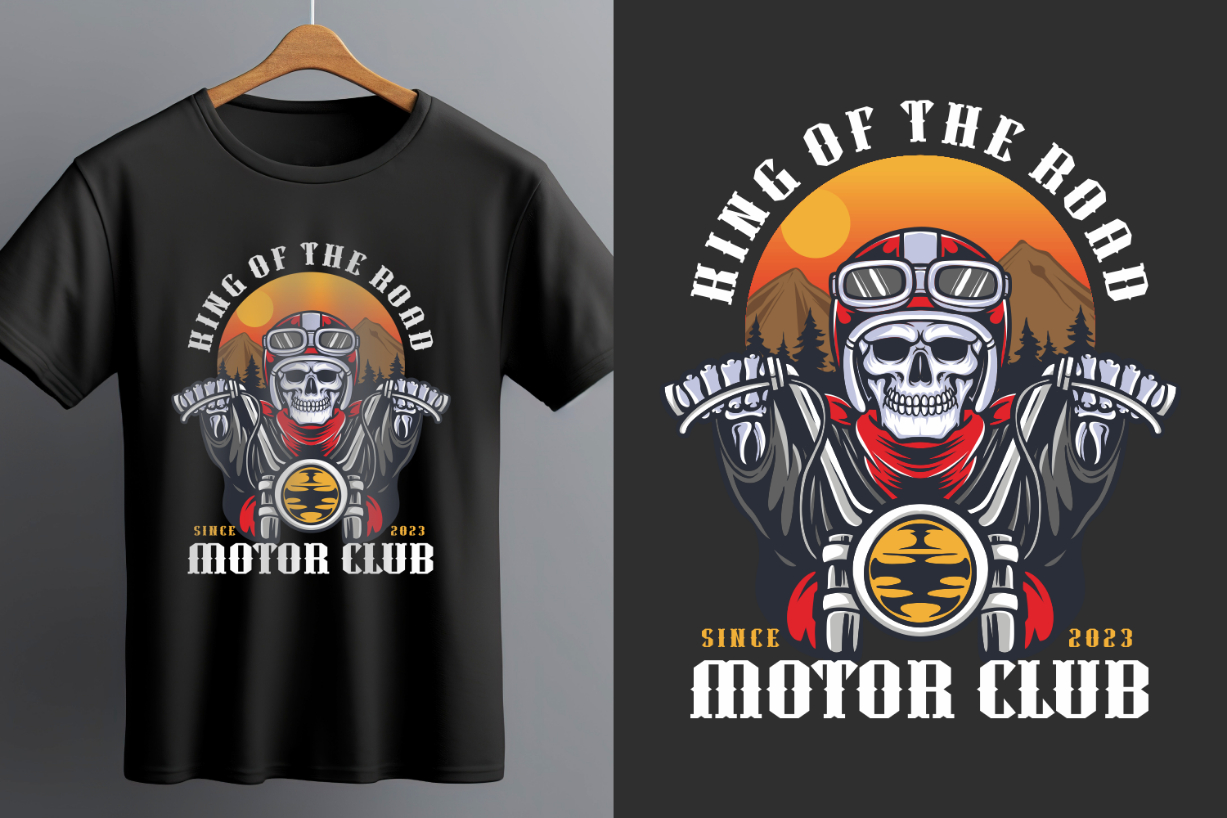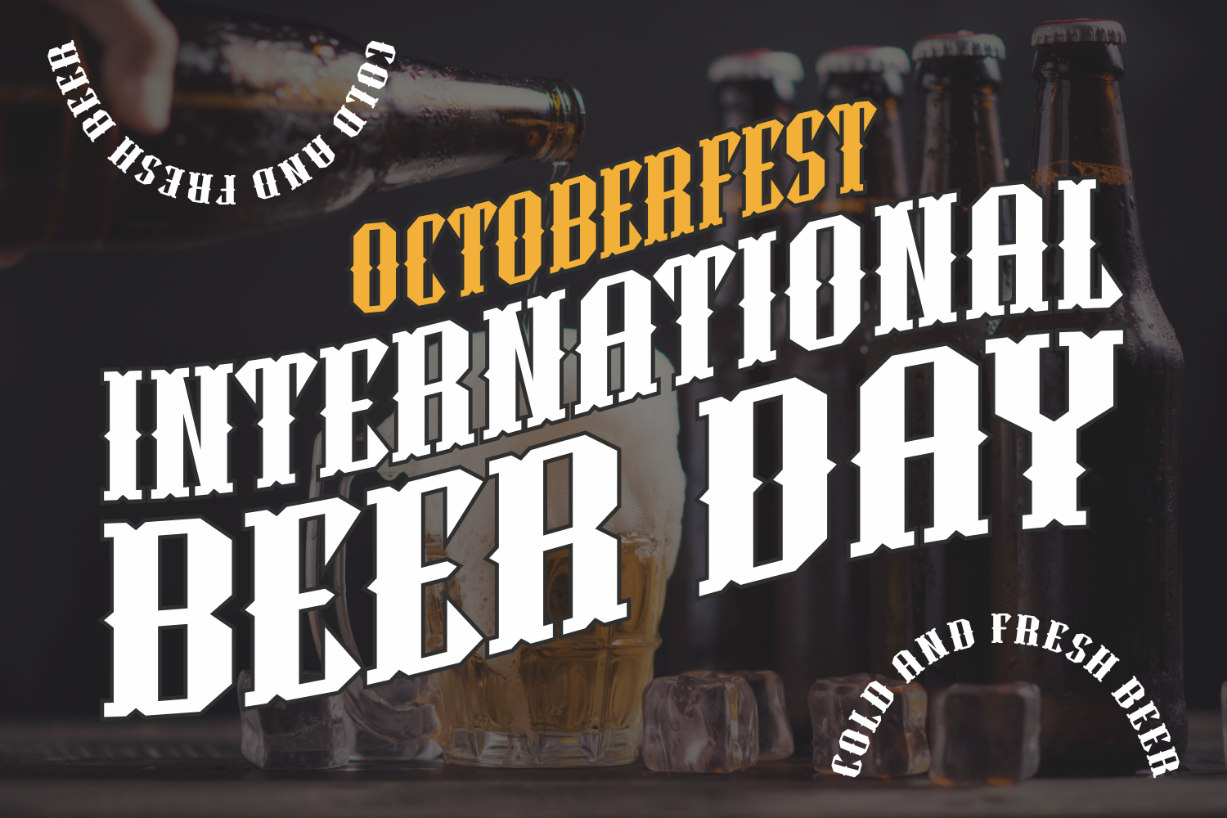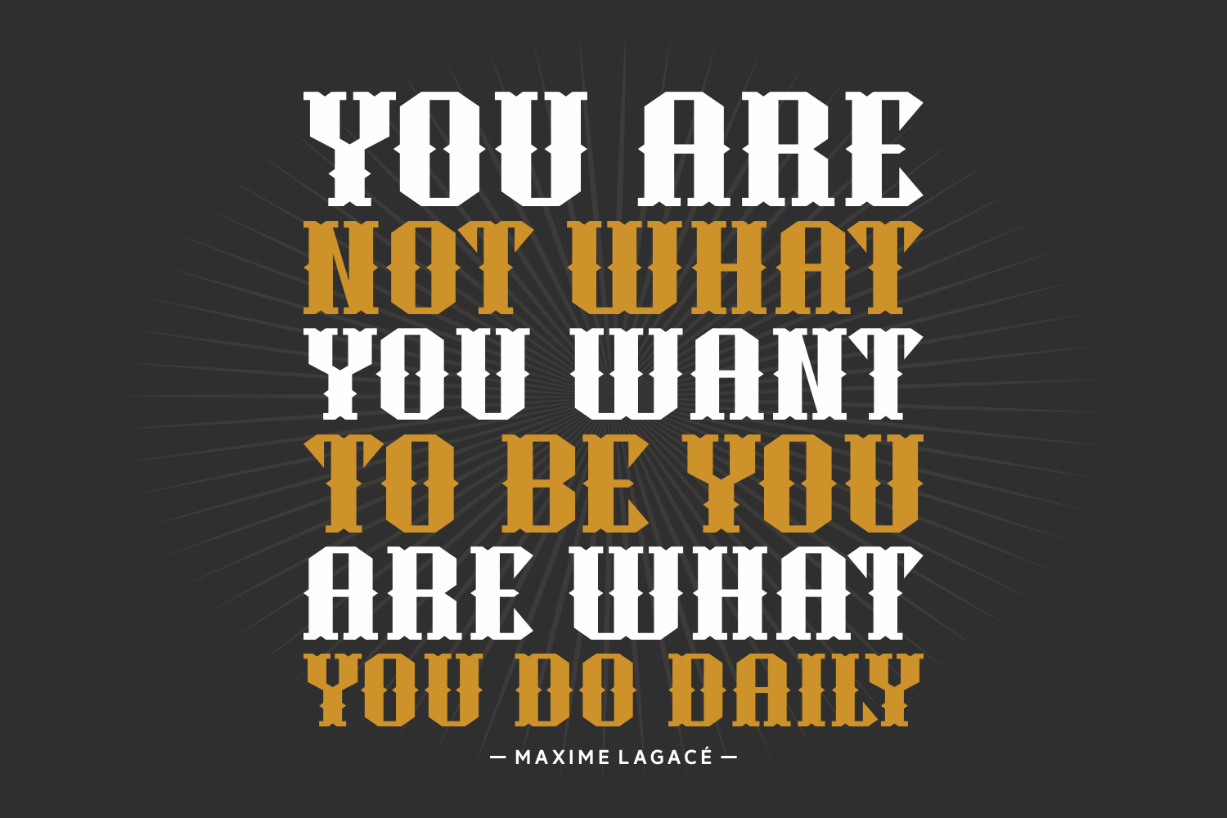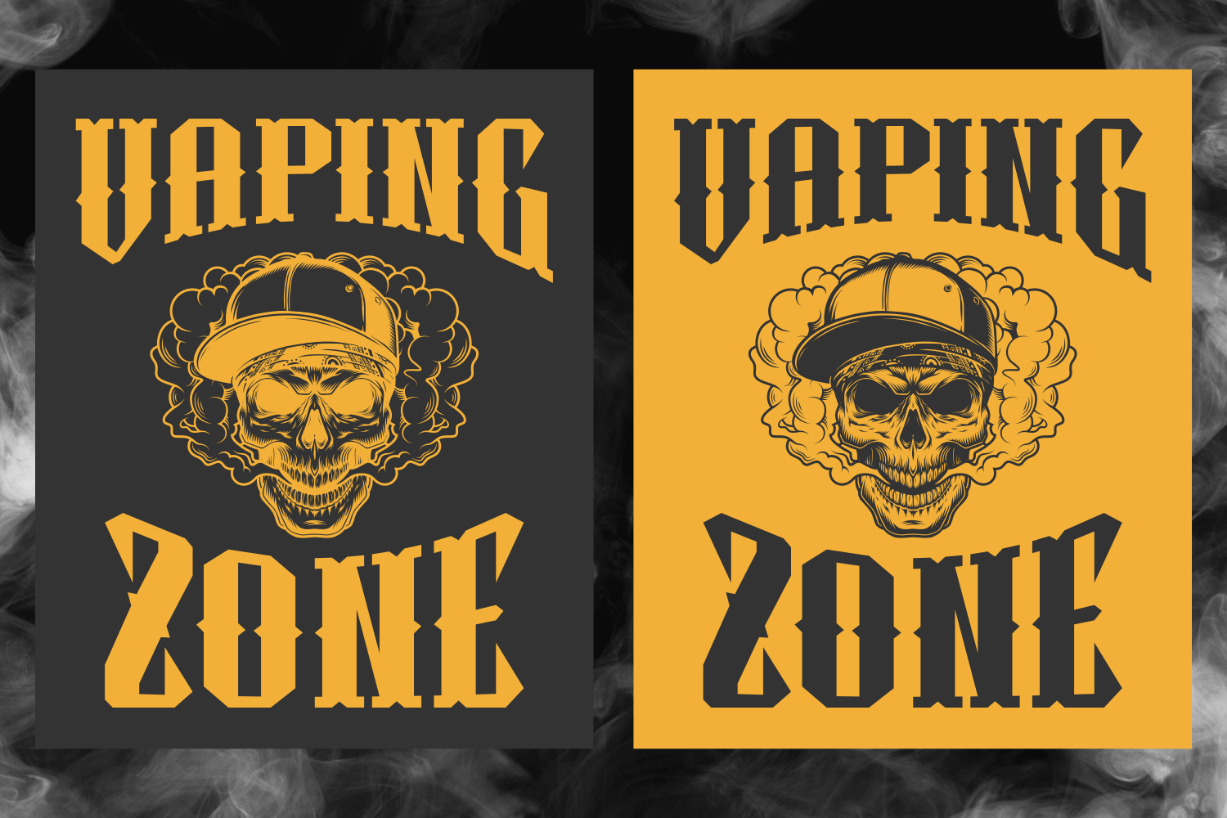
Dark Bond Font
About Dark Bond Font
Dark Bond is a thick and classic blackletter font. Add a bold and striking look to your typography projects with this impressive typeface that has the potential to elevate any creation! Choose it for your next creative project, and you will love the results it delivers.